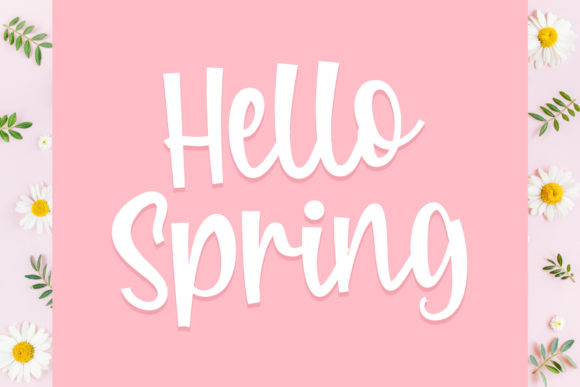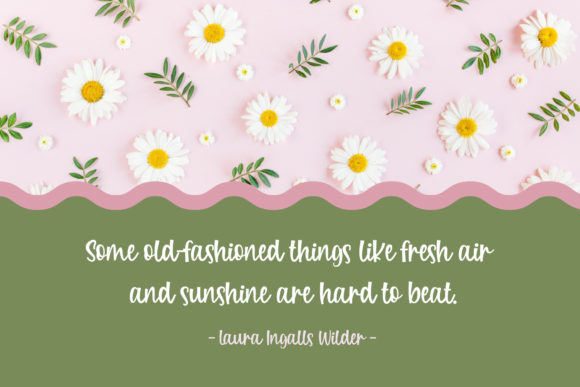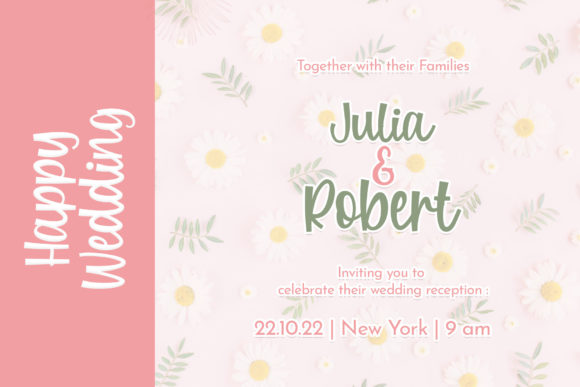
Introduction to Pink Garden Font
Pink Garden Beauty Script Font Make your design more stunning and unique using this beautiful script font.
Combine it with your favorite sans serif font, and it won’t lose its elegance .